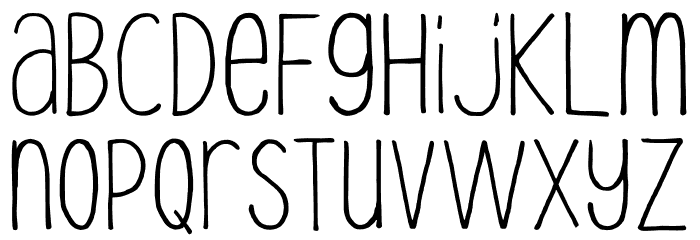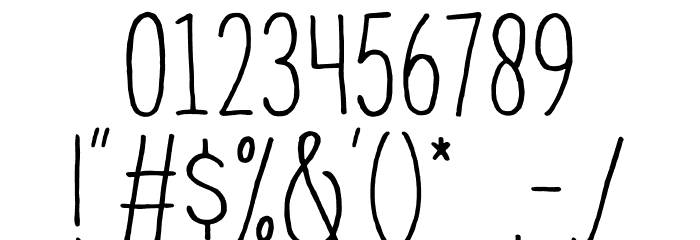
Le-Havre-City-Light Font
This font features a playful and casual handwritten style, characterized by its tall, narrow letterforms and slightly irregular strokes. The uppercase and lowercase letters maintain a consistent height, giving it a uniform appearance. The numbers and special characters follow the same aesthetic, with a whimsical touch that adds personality. The strokes are thin and consistent, contributing to a light and airy feel. This font is ideal for projects that require a friendly and approachable look, such as children's books, greeting cards, or informal branding. Its simplicity and charm make it versatile for various creative applications.
A playful handwritten font with tall, narrow letterforms and a light, airy feel.
- Font: Le-Havre-City-Light
- Proposed Projects: Children's books, greeting cards, informal branding, creative invitations.
- Category: Handwritten
- Weight: Light
- Overall Style: Casual, Playful
- Use Case: Headlines, Logos, Informal text